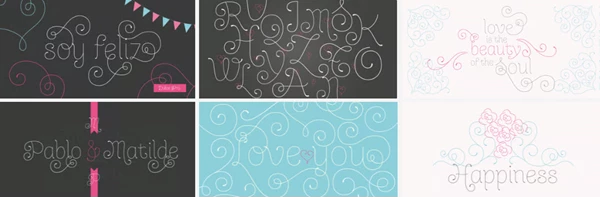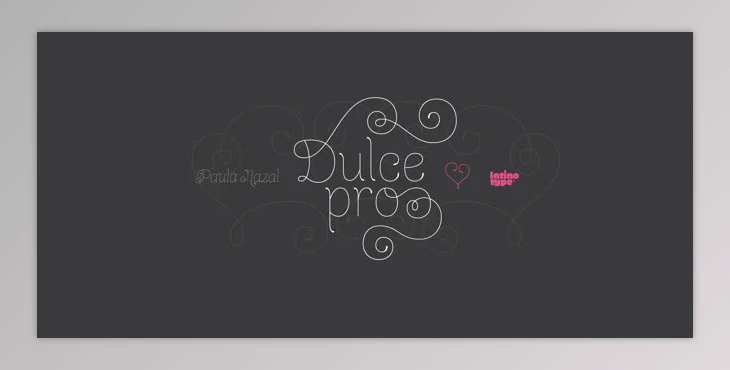
My Fonts - Dulce Pro Font Family:
Dulce Pro is an expansion of the original Dulce font family with a characteristic blend of swashes and elongated teardrop terminals that are monoline. Dulce Pro is a romantic, slender font that maintains a script-type quality but avoids the full commitment to script-type. This makes it ideal for various projects in a sophisticated and elegant realm. Dulce Pro also features unique initial capital letters with swashes and lowercase endings. As an extended family, Dulce Pro includes italics and various ornamental details to complete the look. These details include cute hearts, flowers, banners, and borders, every kind of ornamentation one could want. This helps professionals and avid designers achieve what they want with ease when involving lettering that is refined yet straightforward. Use Dulce Pro for branding, invites, and more!